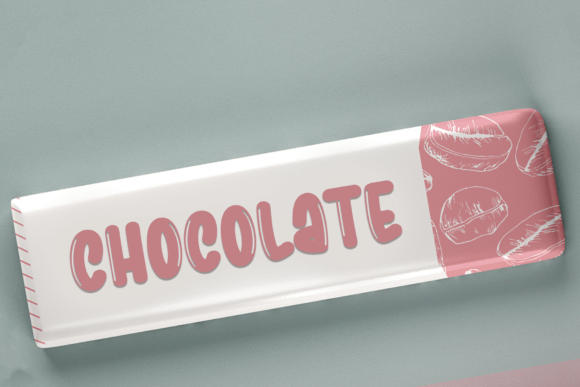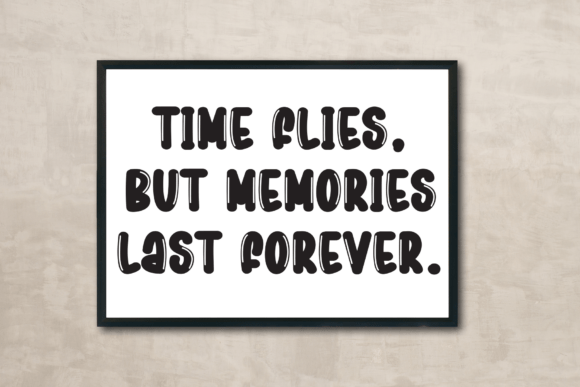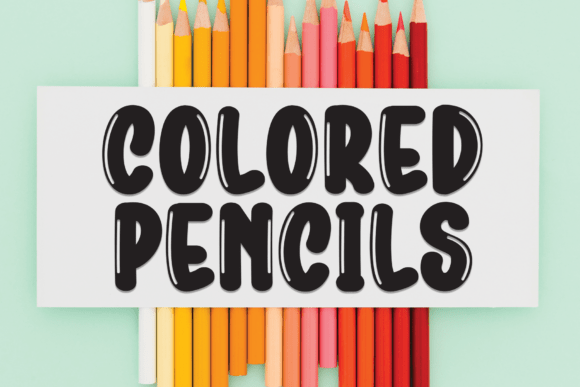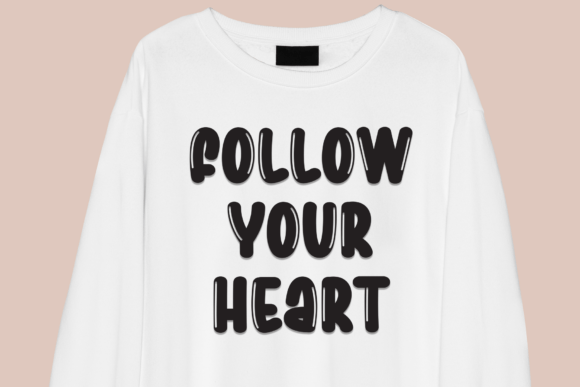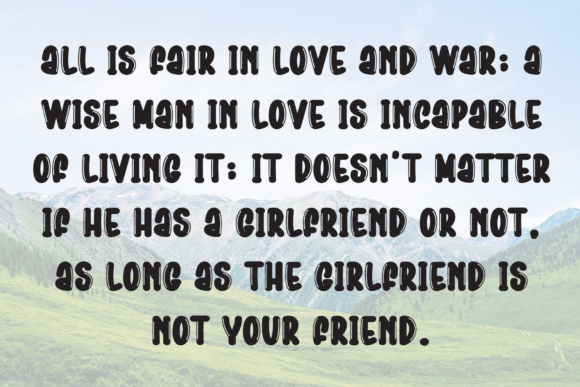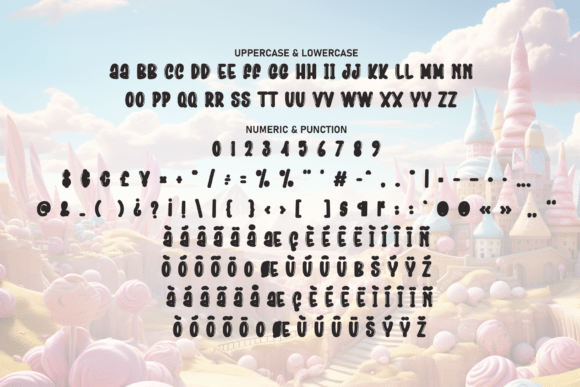
Candy Palace Font: A Sweet Treat for Your Designs
Are you looking for a font that’s as sweet as candy and as fun as a child’s birthday party? Look no further than Candy Palace Font! This bold and whimsical display font is bursting with sweetness and fun, making it perfect for kid-themed projects, candy packaging, birthday invites, and playful branding that needs extra personality.
The Perfect Font for Kid-Themed Projects
Candy Palace Font is a chunky and rounded font that’s reminiscent of childhood treats and memories. Its cartoonish flair makes it an excellent choice for kid-themed projects such as children’s books, nursery decor, and kids’ party invitations. The font’s playful and fun vibe is sure to capture the imagination of kids and adults alike, making it an ideal choice for designers and crafters who work on projects for young children.
Candy Packaging and Birthday Invites
Candy Palace Font is also perfect for candy packaging and birthday invites. The font’s bold and colorful appearance makes it stand out, and its whimsical flair adds a touch of fun and playfulness to any design. Imagine using this font to create eye-catching candy wrappers, colorful party invitations, or fun and playful labels for your homemade treats. With Candy Palace Font, you can add a dash of sweetness to your designs and make them truly unforgettable.
Playful Branding and Extra Personality
Candy Palace Font is not just limited to kid-themed projects and candy packaging. Its playful and fun vibe makes it an excellent choice for brands that want to add a touch of whimsy to their branding. Whether you’re a baker, a candy store owner, or a children’s party planner, this font can help you create a brand identity that’s fun, playful, and memorable. With Candy Palace Font, you can add extra personality to your branding and make it stand out from the crowd.
Key Features of Candy Palace Font
- Bold and Whimsical: Candy Palace Font is a bold and whimsical display font that’s perfect for making a statement.
- Chunky and Rounded: The font’s chunky and rounded letters make it easy to read and add a touch of playfulness to any design.
- Cartoonish Flair: The font’s cartoonish flair makes it perfect for kid-themed projects and playful branding.
Design Tips and Inspiration
Here are some design tips and inspiration to help you get the most out of Candy Palace Font:
- Pair with Other Fonts: Pair Candy Palace Font with other fonts to create a unique and interesting contrast.
- Use Bright Colors: Use bright and bold colors to match the playful and fun vibe of the font.
- Add Illustrations: Add illustrations and graphics to enhance the whimsical and playful feel of the font.
- Experiment with Sizes: Experiment with different font sizes to create visual interest and hierarchy.
Candy Palace Font is a sweet and fun font that’s perfect for designers and crafters who want to add a touch of whimsy to their designs. With its bold and whimsical appearance, chunky and rounded letters, and cartoonish flair, this font is sure to capture the imagination of kids and adults alike. Whether you’re working on kid-themed projects, candy packaging, birthday invites, or playful branding, Candy Palace Font is an excellent choice. So why wait? Download Candy Palace Font today and add a dash of sweetness to your designs!